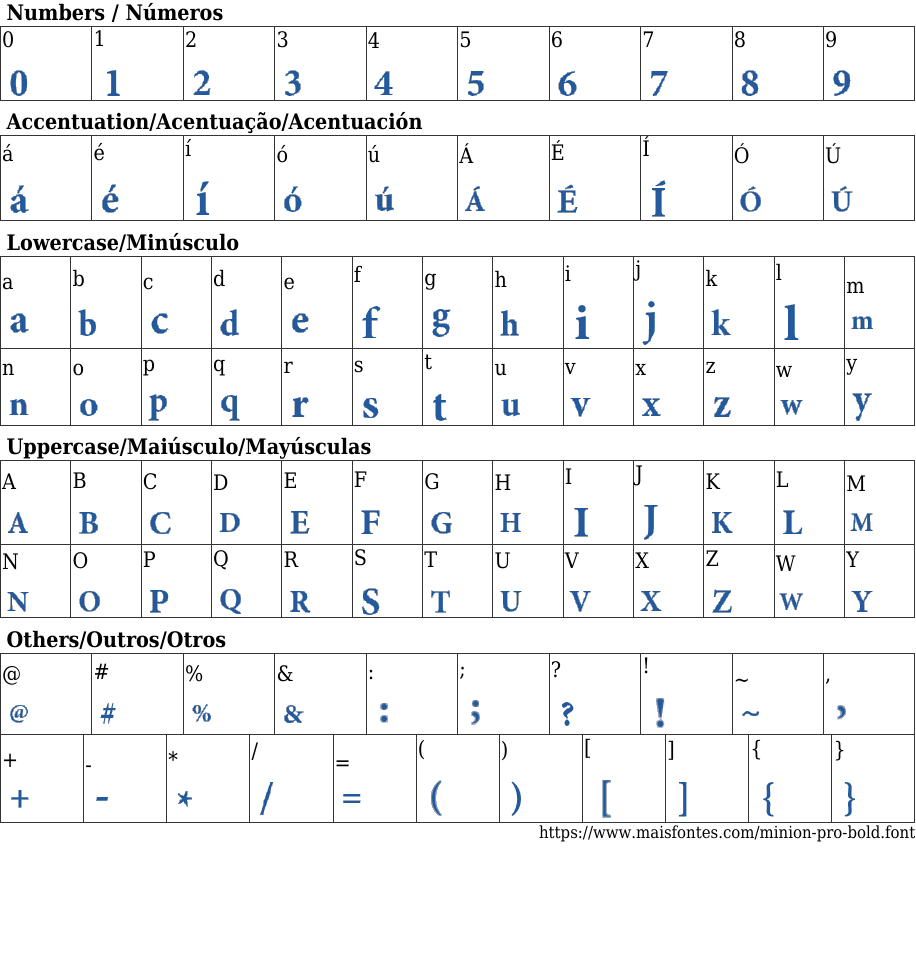
Minion Pro Bold Font Free Download . Moreover, you can embed it to your website with @font. Web explore minion designed by robert slimbach at adobe fonts.
Moreover, you can embed it to your website with @font. Web minion is a serif typeface which was initiated in 1990 by adobe systems. Web download minion pro for free, view sample text, rating and more on fontsgeek.com.
Minion Pro Bold Font Free Download - Web explore minion designed by robert slimbach at adobe fonts. Web discover the free minion pro bold font at free font download ! Web download minion pro bold for free. Available in both linotype and opentype formats and designed by robert. Web download minion pro for free, view sample text, rating and more on fontsgeek.com.
Minion Pro Bold Font Free Download - A serif typeface with 65 styles, available from adobe fonts for sync and web. Web discover the free minion pro bold font at free font download ! Available in both linotype and opentype formats and designed by robert. Moreover, you can embed it to your website with @font. Minion pro bold font is a popular, serif type font that can.
Minion Pro Bold Font Free Download - Web explore minion designed by robert slimbach at adobe fonts. View sample text, character map, user rating and review for minion pro bold. Web minion is a serif typeface which was initiated in 1990 by adobe systems. Minion pro bold font is a popular, serif type font that can be used on any device such as pc, mac,. Installable on.
Minion Pro Bold Font Free Download - A serif typeface with 65 styles, available from adobe fonts for sync and web. Web discover the free minion pro bold font at free font download ! Web minion pro bold font download is available free from 8font.com. Minion pro bold font is a popular, serif type font that can be used on any device such as pc, mac,. Web.
Minion Pro Bold Font Free Download - Moreover, you can embed it to your website with @font. Web minion pro bold font download is available free from 8font.com. A serif typeface with 65 styles, available from adobe fonts for sync and web. View sample text, character map, user rating and review for minion pro bold. Web download minion pro for free, view sample text, rating and more.
Minion Pro Bold Font Free Download - View sample text, character map, user rating and review for minion pro bold. Available in both linotype and opentype formats and designed by robert. Web explore minion designed by robert slimbach at adobe fonts. Moreover, you can embed it to your website with @font. Web minion is a serif typeface which was initiated in 1990 by adobe systems.
Minion Pro Bold Font Free Download - Installable on pc, mac, linux, ios, and android platforms. Web discover the free minion pro bold font at free font download ! Minion pro bold font is a popular, serif type font that can be used on any device such as pc, mac,. Web minion pro bold font download is available free from 8font.com. Available in both linotype and opentype.
Minion Pro Bold Font Free Download - Moreover, you can embed it to your website with @font. Web download minion pro for free, view sample text, rating and more on fontsgeek.com. Web download minion pro bold for free. Installable on pc, mac, linux, ios, and android platforms. Web discover the free minion pro bold font at free font download !
Minion Pro Bold Font Free Download - Web discover the free minion pro bold font at free font download ! View sample text, character map, user rating and review for minion pro bold. Web minion is a serif typeface which was initiated in 1990 by adobe systems. Available in both linotype and opentype formats and designed by robert. Web minion pro bold font download is available free.
Minion Pro Bold Font Free Download - Installable on pc, mac, linux, ios, and android platforms. Web minion pro bold font download is available free from 8font.com. Web download minion pro for free, view sample text, rating and more on fontsgeek.com. A serif typeface with 65 styles, available from adobe fonts for sync and web. Minion pro bold font is a popular, serif type font that can.